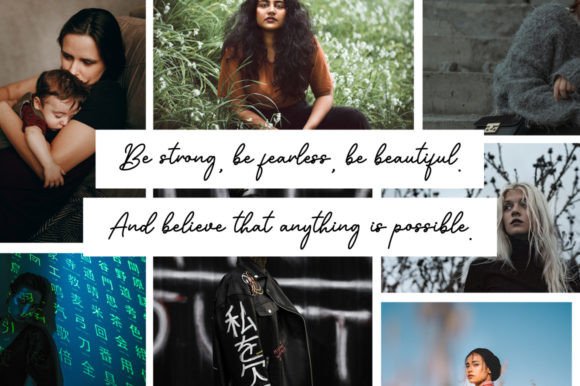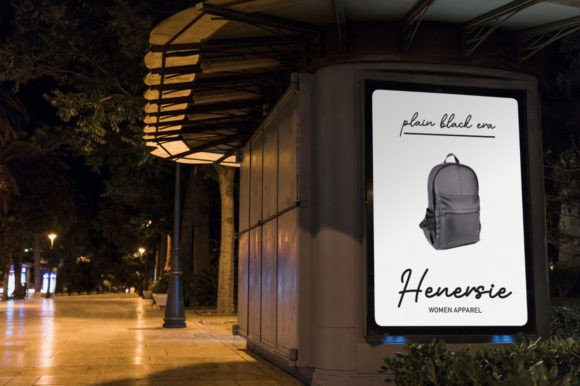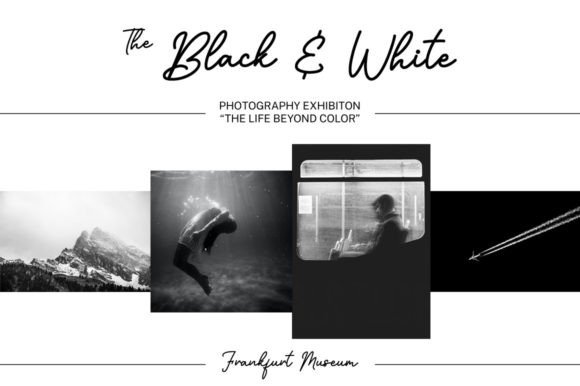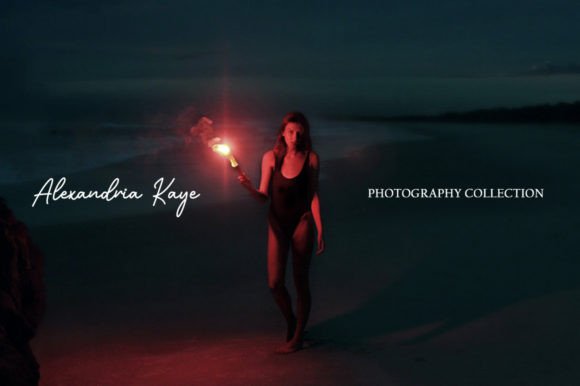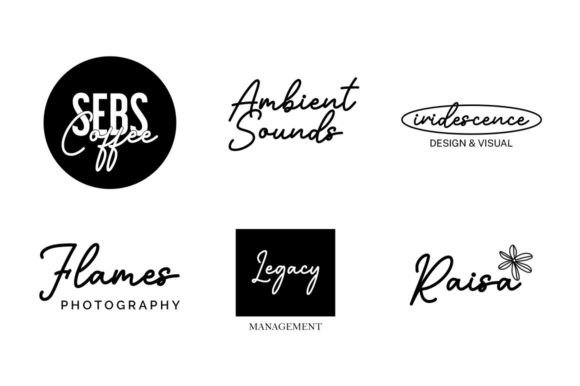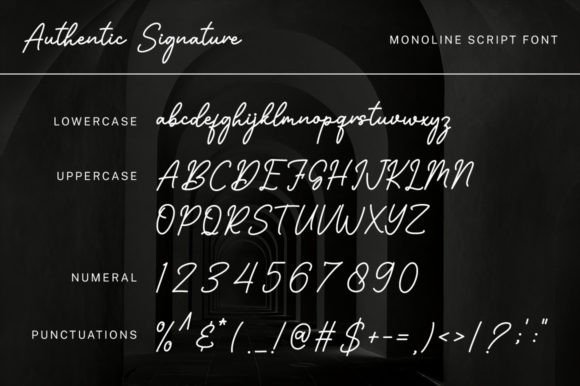
Introducing Authentic Signature Font: The Perfect Choice for Romantic Designs
Are you looking for a font that exudes elegance and romance? Look no further than Authentic Signature Font, a beautiful handwritten font that is perfect for adding a personal touch to your designs. In this article, we’ll take a closer look at Authentic Signature Font, its features, and how you can use it to create stunning designs that will leave a lasting impression.
What is Authentic Signature Font?
Authentic Signature Font is a carefully crafted handwritten font that is designed to bring a touch of elegance and sophistication to your designs. This beautiful font is perfect for creating romantic and personalized designs, making it ideal for wedding invitations, cards, and other special occasions.
Key Features of Authentic Signature Font
- Elegant Handwritten Style: Authentic Signature Font features a beautiful, flowing handwritten style that is both dainty and joyful.
- Romantic and Personalized: This font is perfect for adding a romantic and personalized touch to your designs, making it ideal for wedding invitations, cards, and other special occasions.
- Highly Versatile: Authentic Signature Font can be used for a wide range of design projects, from digital designs to print materials.
- Easy to Read: The font is designed to be easy to read, making it perfect for body text and headings.
Use Cases for Authentic Signature Font
Authentic Signature Font is a highly versatile font that can be used for a wide range of design projects. Here are some use cases to get you started:
- Wedding Invitations: Create beautiful and romantic wedding invitations that will set the tone for the big day.
- Cards and Stationery: Add a personal touch to your cards and stationery with this elegant handwritten font.
- Digital Designs: Use Authentic Signature Font to create stunning digital designs, such as social media graphics and blog posts.
- Print Materials: This font is perfect for print materials, such as brochures, flyers, and posters.
Tips for Using Authentic Signature Font
Here are some tips for getting the most out of Authentic Signature Font:
- Pair with Other Fonts: Pair Authentic Signature Font with other fonts to create a unique and visually appealing design.
- Use for Headings and Body Text: Use Authentic Signature Font for both headings and body text to create a cohesive design.
Authentic Signature Font is a beautiful and elegant handwritten font that is perfect for adding a romantic and personalized touch to your designs. With its highly versatile design and ease of use, this font is ideal for a wide range of design projects. Whether you’re a designer or crafter, Authentic Signature Font is a must-have font that will help you create stunning designs that will leave a lasting impression.